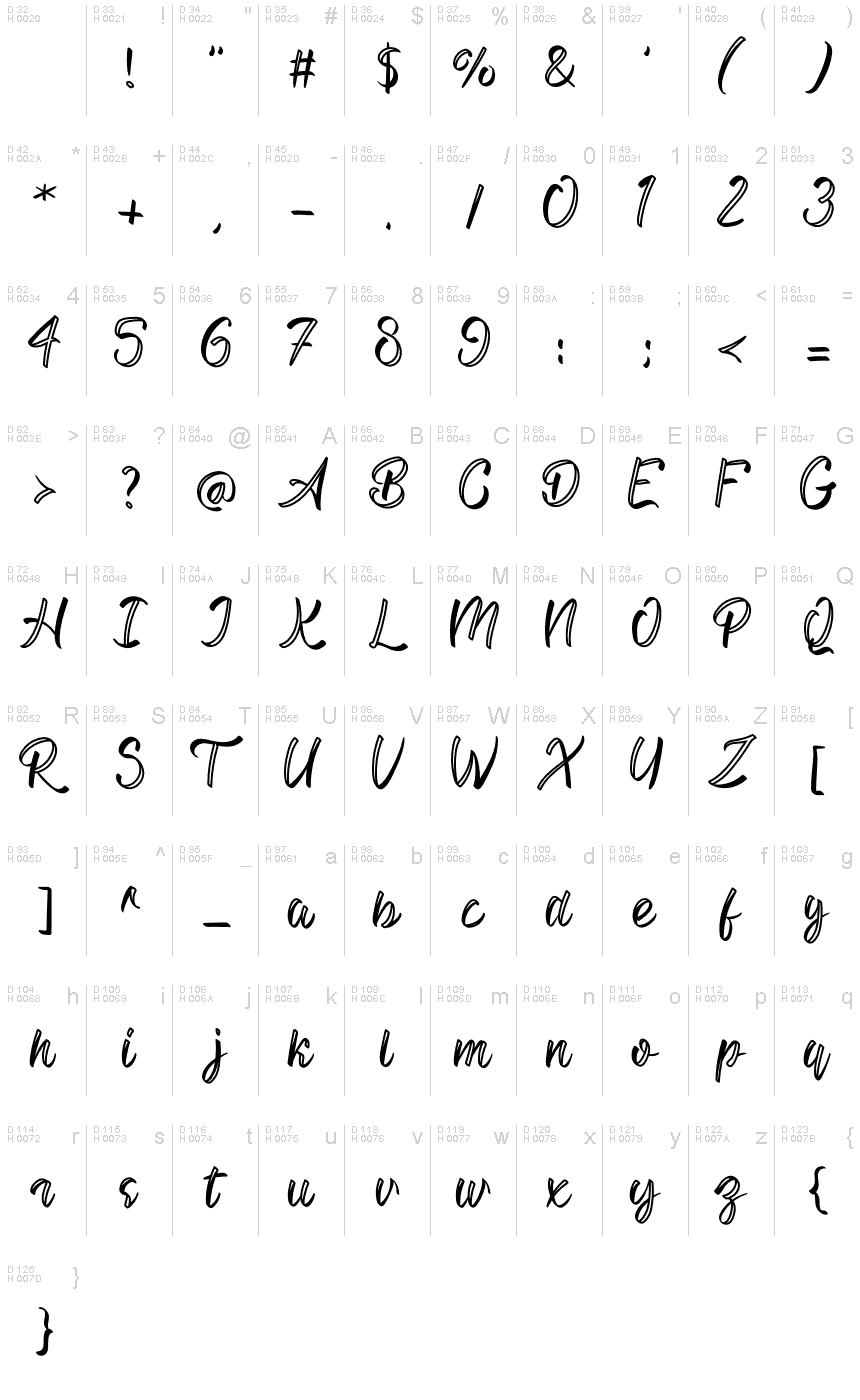
Room Sweet
Room Sweet, the delightful creation by Belina Studio, is a charming handwritten font that effortlessly combines elegance with playfulness. Its semi-light weight adds a touch of delicacy to any project, making it perfect for crafting enchanting wedding invitations or romantic greeting cards. This versatile typeface also shines in children's book illustrations, bringing stories to life with its whimsical strokes. Whether you're designing feminine branding materials or dreamy blog headers, Room Sweet will infuse your projects with a touch of sweetness and creativity. Elevate your designs and captivate your audience with this gem.